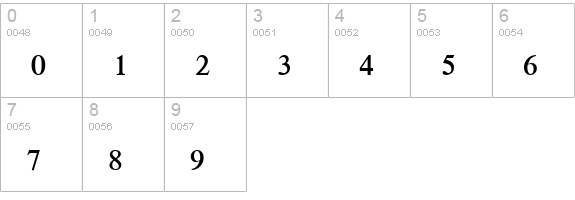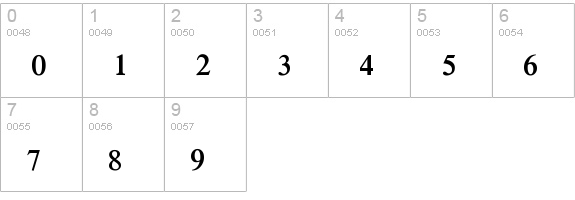
FrankRuehl Font Details
FrankRuehl is a classic and elegant font that exudes sophistication and charm. Its timeless design makes it perfect for a wide range of projects, from formal invitations to branding materials. The intricate details of each letter showcase the craftsmanship and attention to detail that went into creating this beautiful typeface. What sets FrankRuehl apart is not just its stunning appearance, but also the fact that it is available for free download at FontsMarket.com. This means that you can easily access this high-quality font without any cost, making it an excellent choice for designers and creatives looking to add a touch of elegance to their work. With its versatility and timeless appeal, FrankRuehl is sure to elevate any design project and leave a lasting impression.